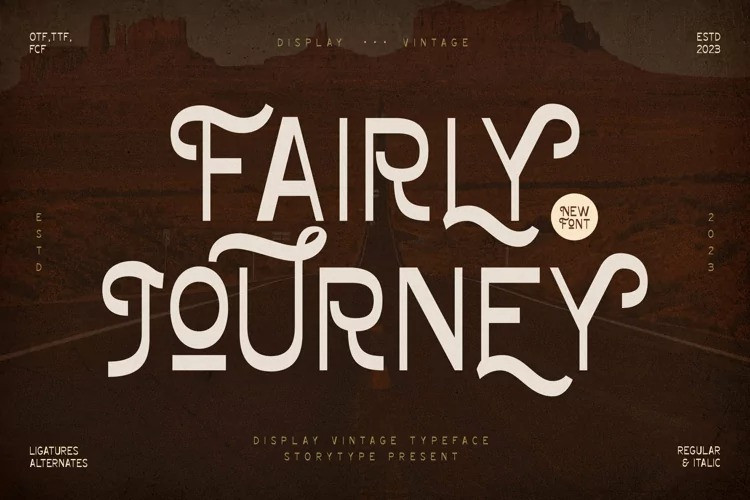
Fairly Journey Font
Fairly Journey Display Font, created by Storytype, a display modern and classic typeface that has own unique style & modern look.